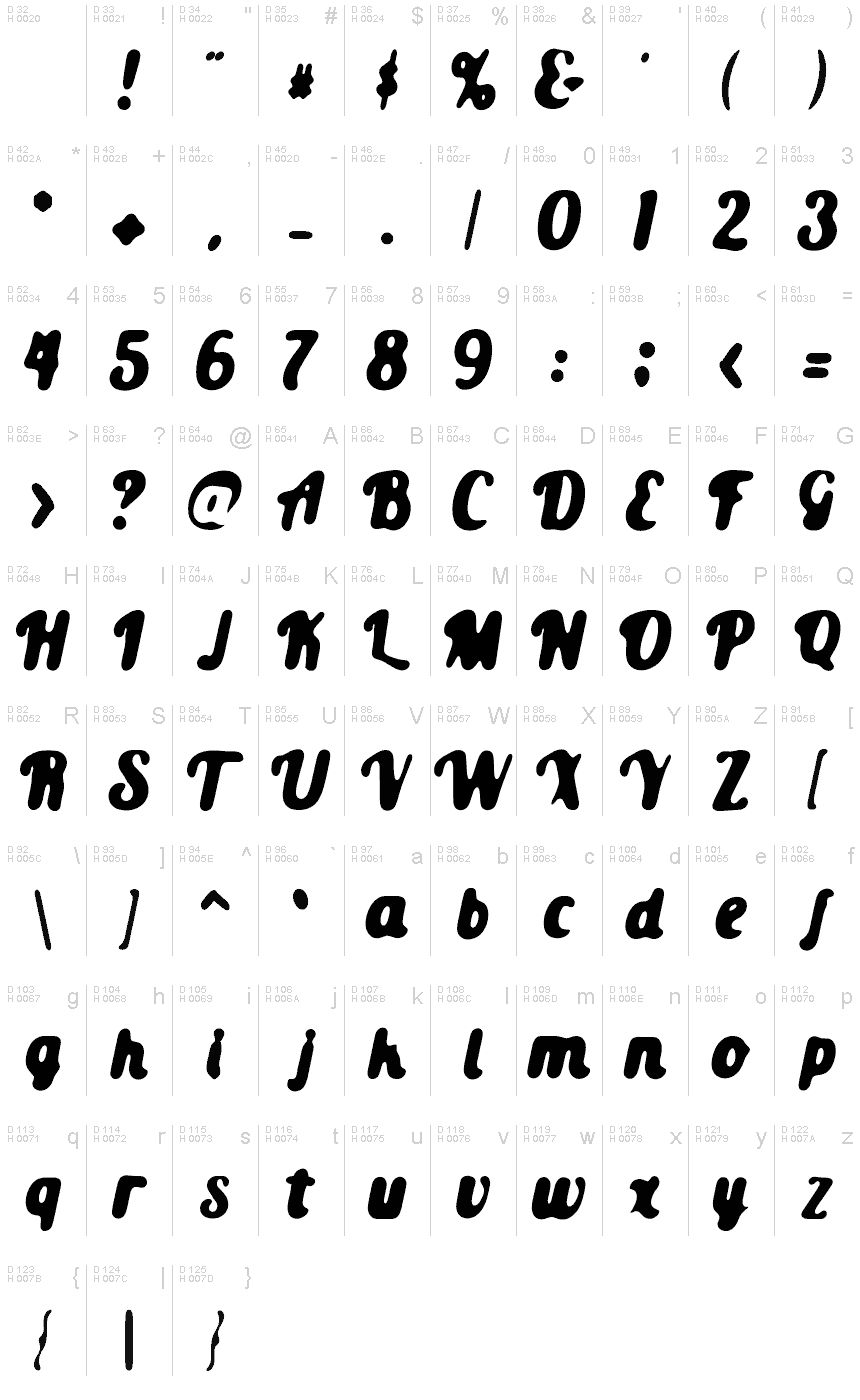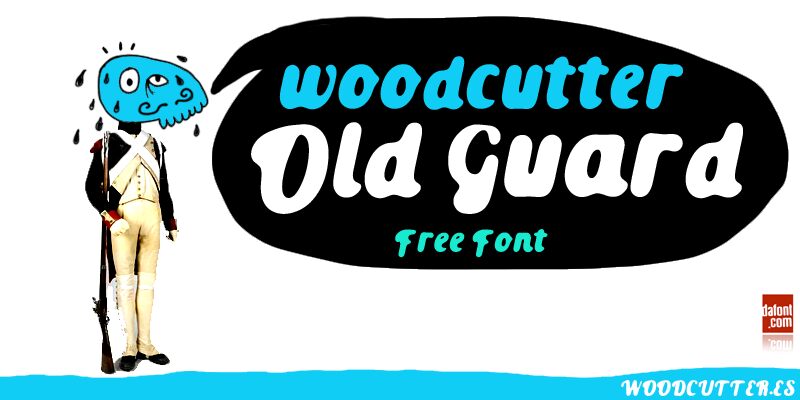
Old Guard
Old Guard is a bold, eroded display font with a distinct vintage aesthetic. Designed by Woodcutter, this typeface exudes a rugged, time-worn charm that evokes a sense of history and authenticity. The distressed, weathered appearance of the letterforms suggests a weathered surface, adding depth and character to any design.
This font would be well-suited for a variety of applications, from rustic branding and packaging to retro-inspired poster designs and editorial layouts. Its strong presence makes it an ideal choice for capturing attention and creating a visually striking impact. The Old Guard font's unique personality effortlessly conveys a sense of enduring strength and resilience, making it a compelling choice for designers seeking to craft memorable, impactful designs.